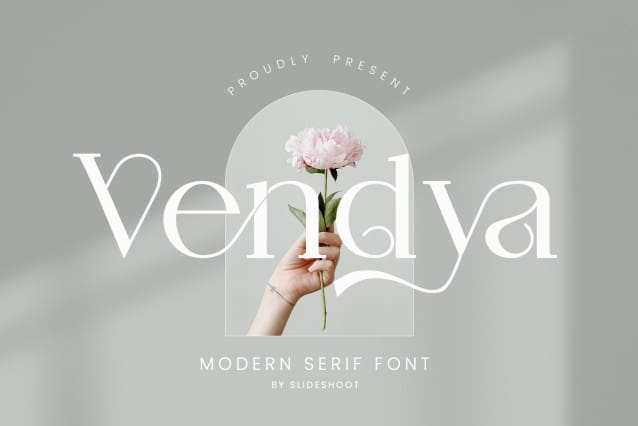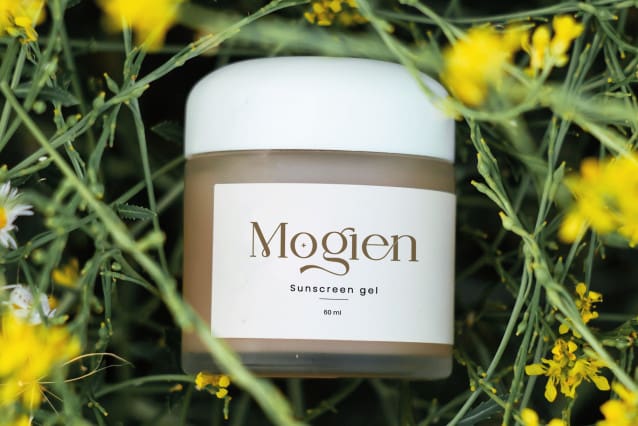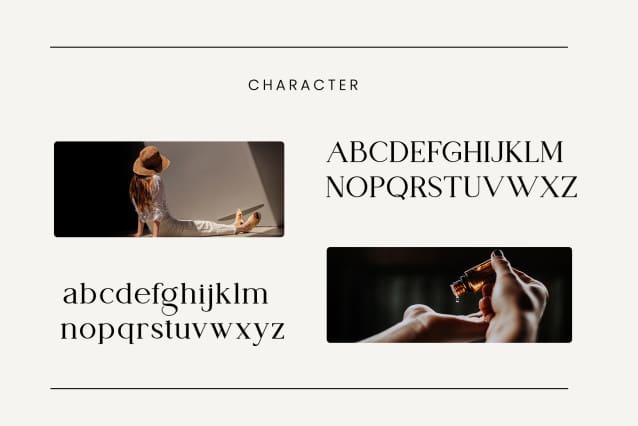
Vendya Serif Font
Vendya Serif Font is a balanced, smooth, elegant and stylish serif font. He has a beautiful character. It fits perfectly with invitation card designs, company logos, movie titles, movie names, business cards, book titles, brand names and various other designs. Vendya Serif is a subtle serif font that exudes sophistication and elegance. Its stylish alternations and ligatures make this font the perfect partner for any project.